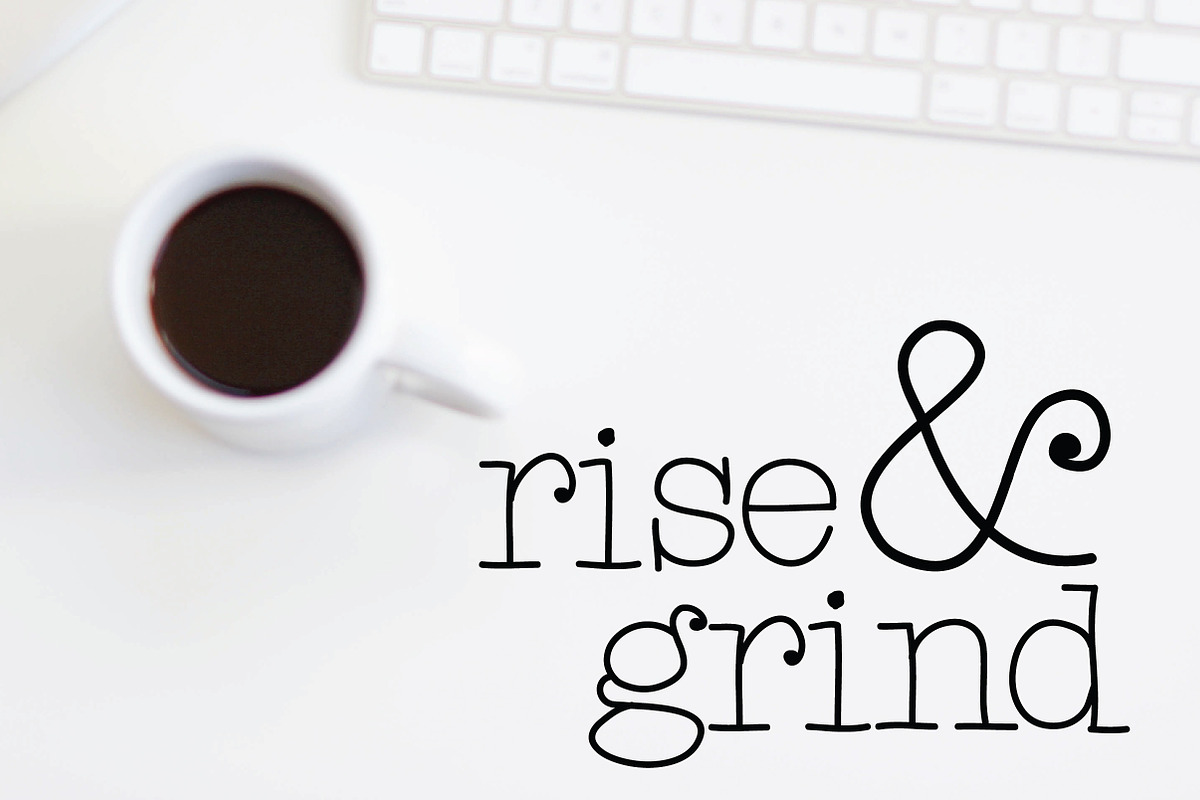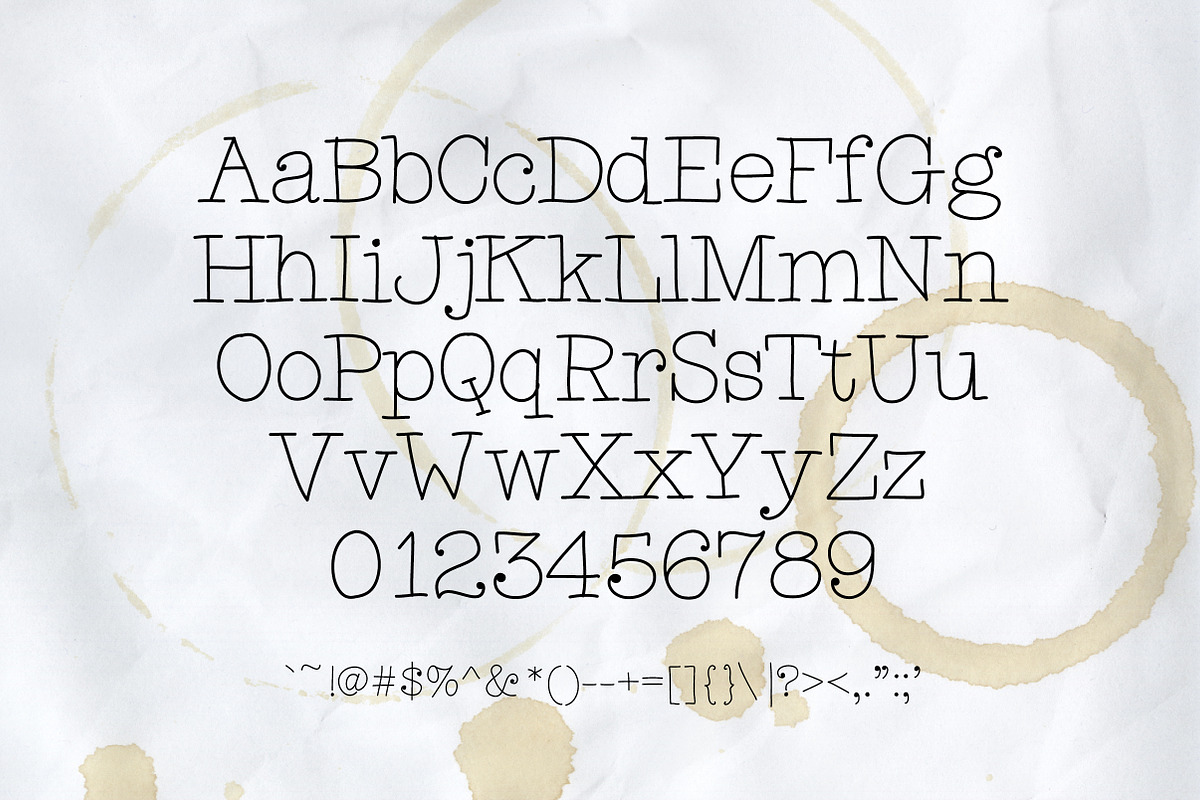
Dunling: A Handmade Serif Font
Dunling: A Handmade Serif Font by A/N Lettering & Design is a font selected for branding, posters, packaging, typography.
Why Dunling: A Handmade Serif Font is worth a look
Dunling: A Handmade Serif Font by A/N Lettering & Design fits naturally into Branding, posters, packaging, typography.